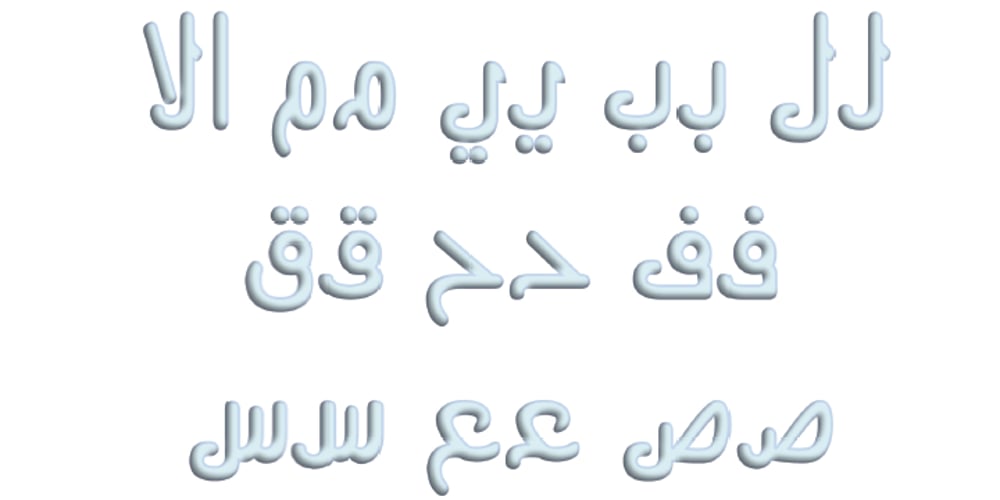
Yasmine Font Family was designed by Saad D. Abulhab and published by Arabetics. Yasmine contains 4 styles and family package options. The Yasmine type family follows the guidelines of the Mutamathil Taqlidi type style. It has one glyph for every basic Arabic Unicode character or letter and one additional, final-position, glyph for each Arabic letter that is normally connected with other letters from both sides in traditional cursive Arabic strings. Yasmine employs four fixed x-height values, two above and two below the x-axis. Values are high to give a slight vertical overall look. Its design uses full curves with equally distributed weight. Yasmine family includes all required Lam-Alif ligatures and uses ligature substitutions, and marks positioning but it does not use any other glyph substitutions or forming. Text strings composed using types of this family are non-cursive with stand-alone isolated glyphs. It employs our “natural Arabic input” method where first glyph is displayed in its non-isolated form. Tatweel (or Kashida) glyph is a zero width space. Keying it before any glyph will display that glyph isolated form. Keying it before Alif Lam Lam Ha will display the Allah ligature. Yasmine family includes both Arabic and Arabic-Indic numerals, all required diacritic marks, Allah ligature, in addition to all standard English keyboard punctuations and major currency symbols. The fonts in this family support the following scripts: Arabic, Persian, Urdu, Pashtu, Kurdish, Baluchi, Kashmiri, Kazakh, Sindhi, Uyghur, Turkic, and all extended Arabic scripts.